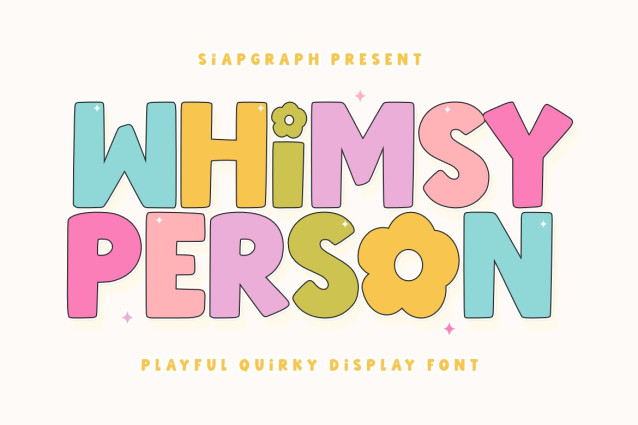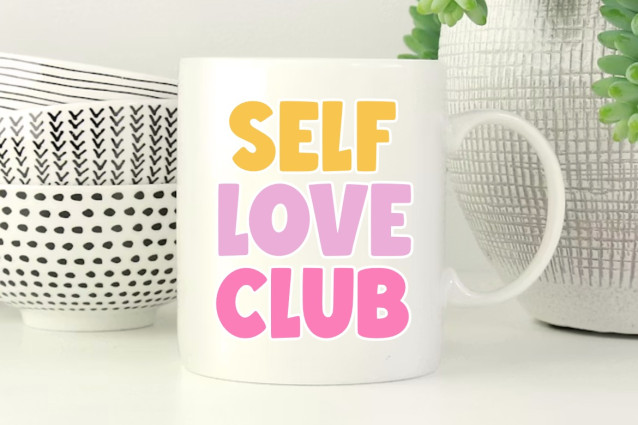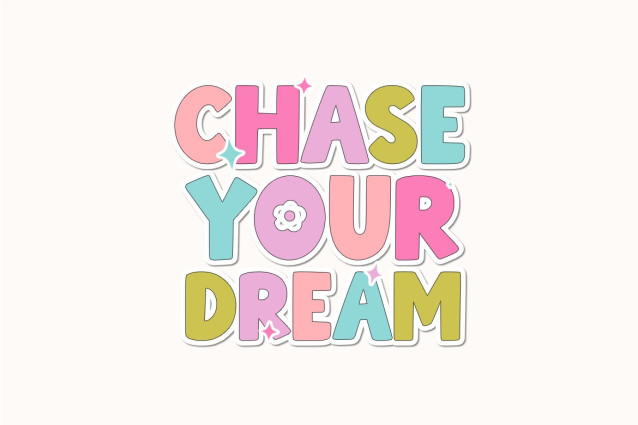
Whimsy Person Font
Perfect for: creating high-converting SVG cut files, personalized stickers, kids’ party decorations, adorable nursery wall art, custom t-shirt designs, and playful social media graphics. Whether you are working on Print on Demand (POD) products or personal DIY crafts, this font provides the perfect blend of readability and whimsical, retro-inspired charm.